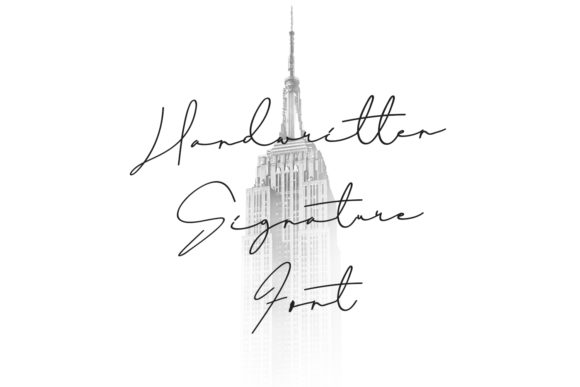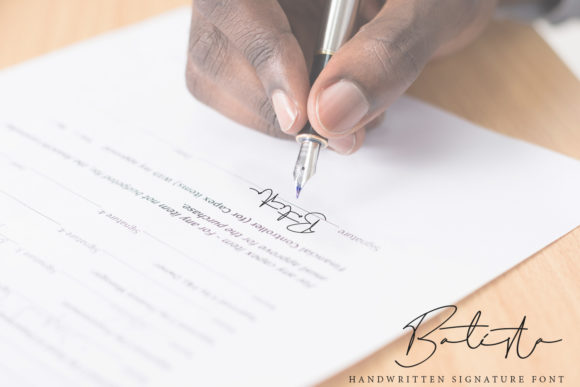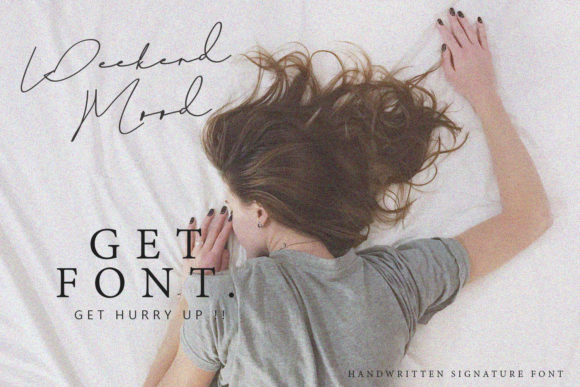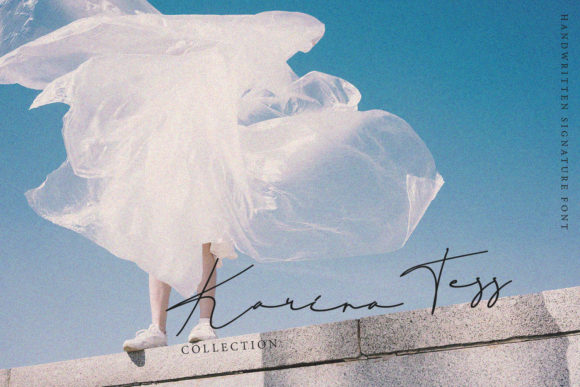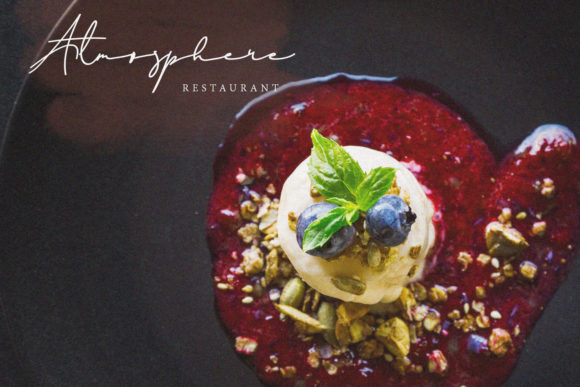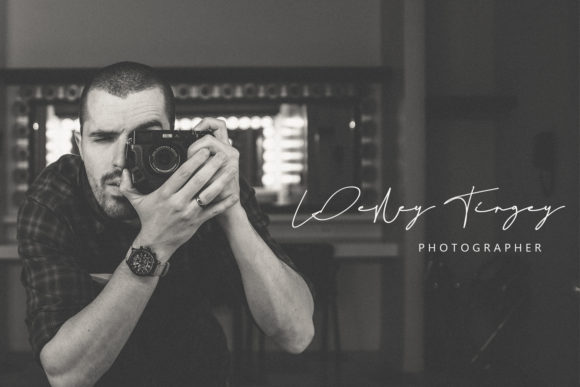
Discover the Charm of Dear Nathan Font: A Sweet and Sophisticated Handwritten Font
Are you a designer or crafter looking for a font that exudes a sense of sophistication and elegance? Look no further than the Dear Nathan font. This sweet and cool handwritten font is perfect for a variety of design projects, from wedding invitations and branding materials to digital graphics and more.
What Makes Dear Nathan Font So Special?
Dear Nathan font is a unique and stylish handwritten font that boasts a sophisticated feel. Its elegant strokes and refined lettering make it perfect for designs that require a touch of class and poise. Whether you’re creating a logo, a social media graphic, or a print advertisement, Dear Nathan font is sure to impress.
Key Features of Dear Nathan Font
- Handwritten with love: Dear Nathan font is a carefully crafted handwritten font that is designed to look like it was written with love and care.
- Sophisticated feel: The font’s elegant strokes and refined lettering give it a sophisticated feel that’s perfect for high-end designs.
- Versatile: Dear Nathan font can be used for a wide range of design projects, from digital graphics to print materials.
- Easily readable: The font is designed to be easily readable, making it perfect for body text and headings.
How to Use Dear Nathan Font in Your Designs
Dear Nathan font is incredibly versatile and can be used in a variety of design projects. Here are a few ideas to get you started:
- Wedding invitations: The elegant and sophisticated feel of Dear Nathan font makes it perfect for wedding invitations and other wedding-related design projects.
- Branding materials: Use Dear Nathan font to create a cohesive brand identity that exudes sophistication and elegance.
- Digital graphics: Dear Nathan font is perfect for digital graphics, such as social media graphics, blog headers, and more.
- Print advertisements: The font’s classic and refined feel makes it perfect for print advertisements, such as flyers, brochures, and more.
Tips for Pairing Dear Nathan Font with Other Fonts
Pairing Dear Nathan font with other fonts can add visual interest and create a unique look. Here are a few tips for pairing Dear Nathan font with other fonts:
- Pair with a sans-serif font: Pairing Dear Nathan font with a sans-serif font, such as Arial or Helvetica, can create a nice contrast and add visual interest to your design.
- Pair with a script font: Pairing Dear Nathan font with another script font can create a beautiful and elegant look that’s perfect for wedding invitations and other formal designs.
- Experiment with font sizes: Experimenting with different font sizes can add visual interest and create a unique look.
Dear Nathan font is a sweet and cool handwritten font with a sophisticated feel that’s perfect for designers and crafters. Its elegant strokes and refined lettering make it perfect for a variety of design projects, from wedding invitations and branding materials to digital graphics and more. With its versatility and readability, Dear Nathan font is sure to become a favorite in your design arsenal.